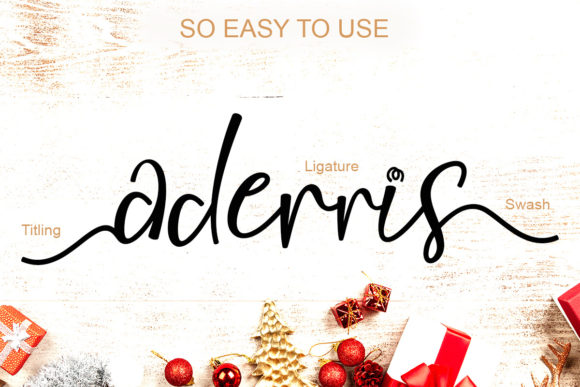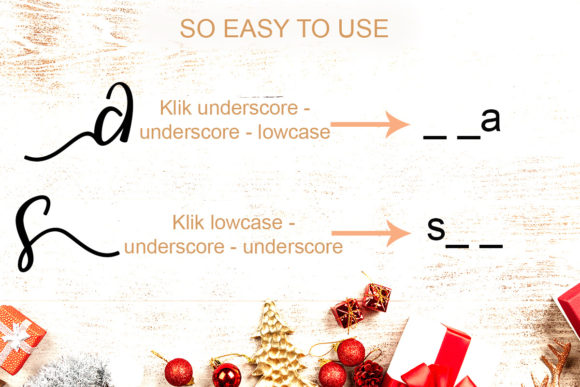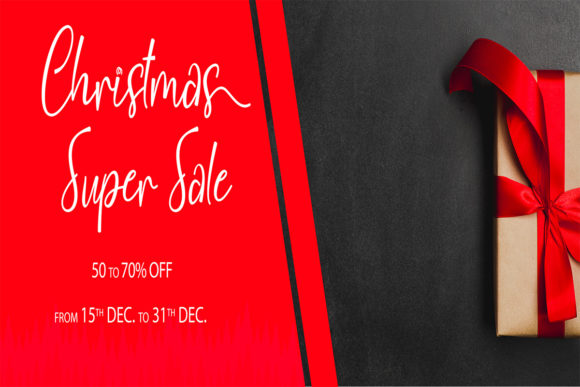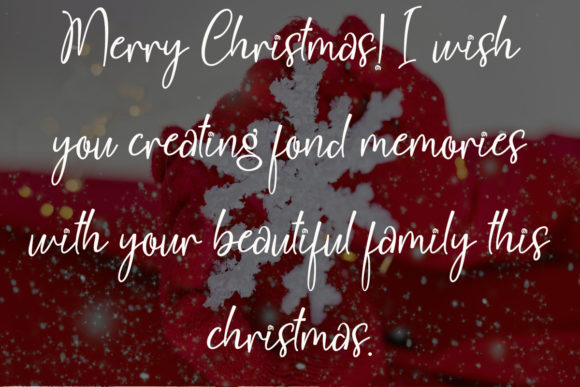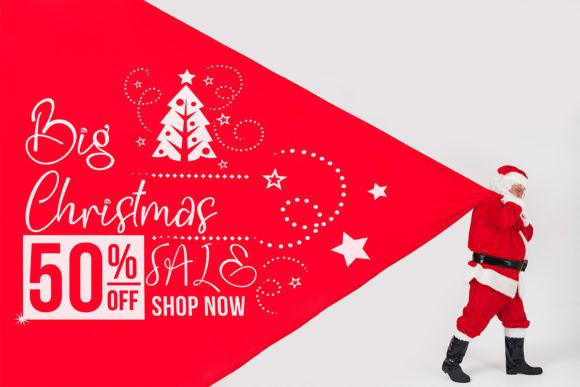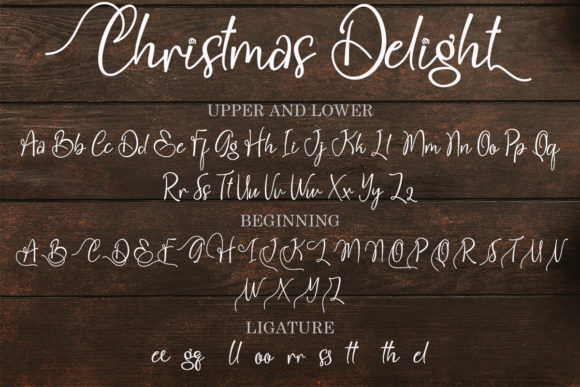
Discover the Magic of Christmas Delight Font
It’s the most wonderful time of the year, and as designers, we’re often on the hunt for that perfect font to make our projects sparkle. I still remember working on a Christmas-themed wedding invitation project, struggling to find a font that captured the romantic and whimsical feel my client was looking for. That’s when I stumbled upon Christmas Delight Font, a beautiful calligraphy typeface that instantly became my go-to. In this article, we’ll dive into the world of Christmas Delight Font, exploring its features, uses, and some helpful tips on how to make the most of it.
A Personal Review of Christmas Delight Font
- ✨ Romantic and sweet calligraphy style with characters that dance along the baseline
- ✅ Casual yet elegant touch, perfect for a variety of design projects
- ✅ Versatile and can be used for logos, wedding invitations, headings, t-shirts, and more
- ✅ Easy to read and understand, even in smaller sizes
While Christmas Delight Font is an amazing addition to any design project, there are a few things to keep in mind:
- ⚠️ Limited use of uppercase letters, which might require some creative workarounds
- 🤔 Some characters may not be suitable for body text, due to their ornamental nature
- Experiment with OpenType features, such as glyphs and stylistic alternates, to add some extra flair
- Use the font’s built-in features, such as ligatures and stylistic alternates, to add some visual interest
The Story Behind Christmas Delight Font
Christmas Delight Font was designed with love and care by a talented type designer who wanted to capture the magic of the holiday season. Inspired by traditional calligraphy and the joy of Christmas, this font is a labor of love that brings a touch of elegance and whimsy to any design project.
Q: Is Christmas Delight Font suitable for body text?
A: While Christmas Delight Font is beautiful, it’s best used for headings and titles due to its ornamental nature. For body text, consider a more straightforward font.